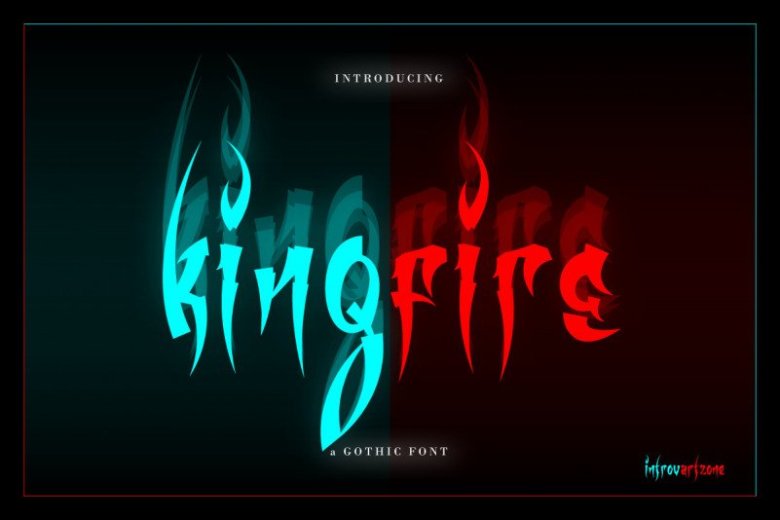
Kingfire Display Font
Kingfire is inspired by experimental typography and brings its own unique style to any design project. This fantastic display font is best suited for headlines of all sizes, as well as for blocks of text that have both maximum and minimum variations.
Whether it’s for web, print, moving images or anything else – Kingfire will look fantastic.